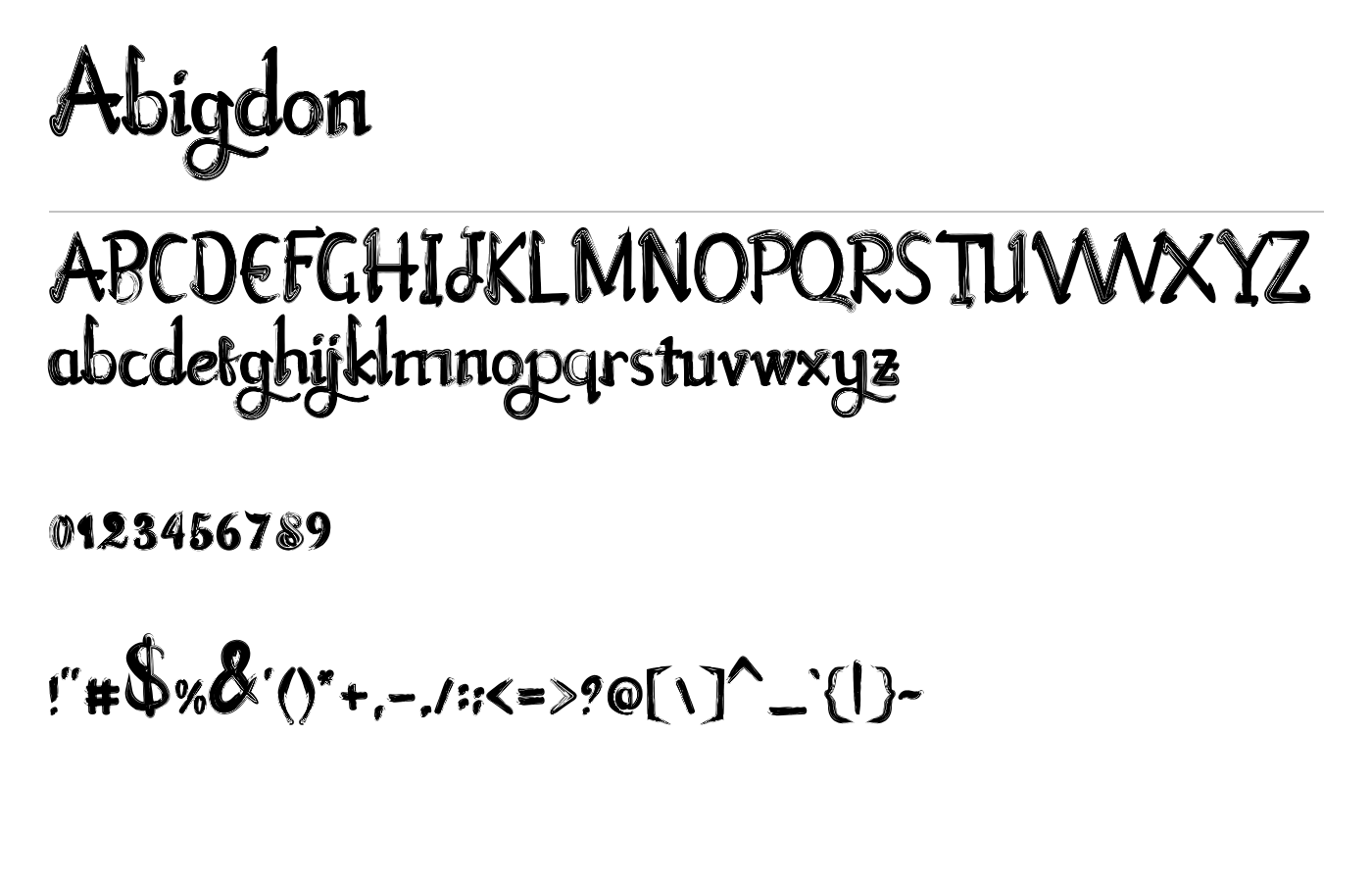
Abigdon is a whimsical serif font with a hand-drawn, playful character that blends artistic irregularity with readable form. Its medium weight and distinct, curly details give it a quirky, vintage charm, making it ideal for creative projects, branding with personality, and eye-catching headlines that want to stand out with a unique, handcrafted feel.
Abigdon Font
About Abigdon Font